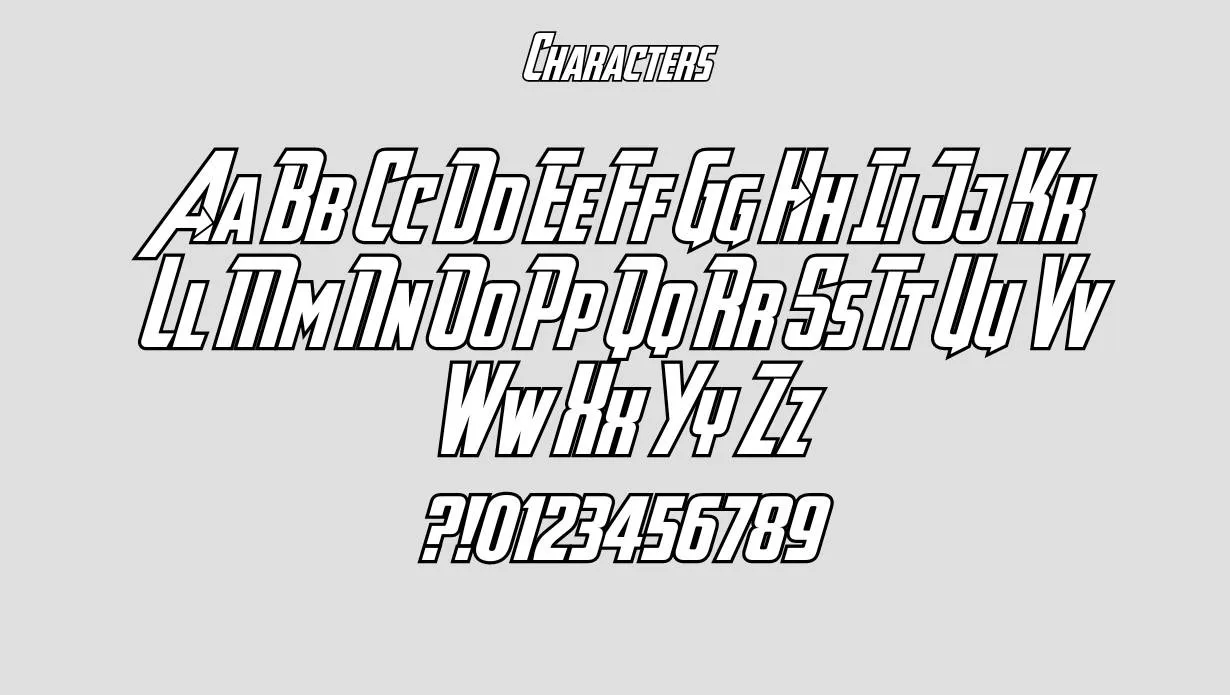
The font “Avenger,” created by Greg Medina, exudes power and a futuristic aesthetic. It conveys strength and heroism, making it perfect for projects requiring a strong and impactful appearance.
Avenger’s sharp lines and angular design contribute to its dynamic and contemporary look, giving your words a strong visual impact.
| Name | Avenger Font |
| Designer | Michael Gene Adkins |
| Style | Display |